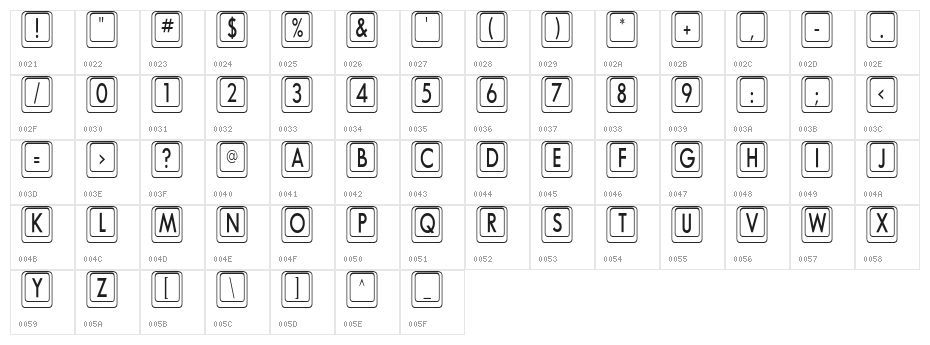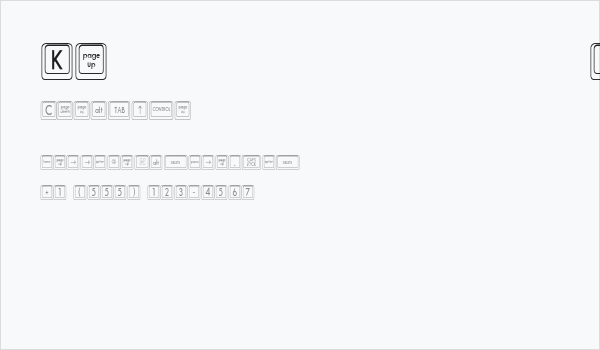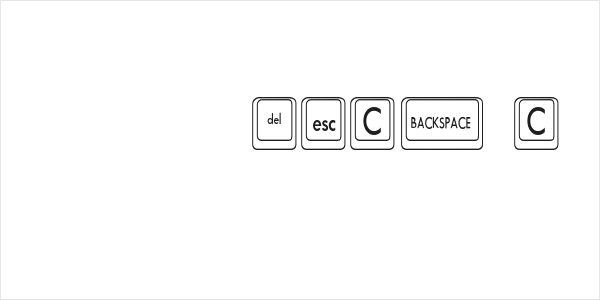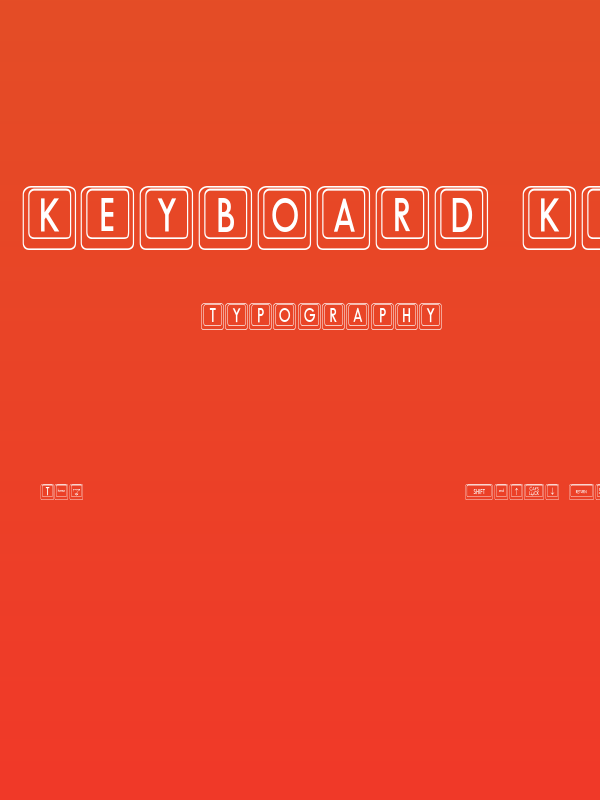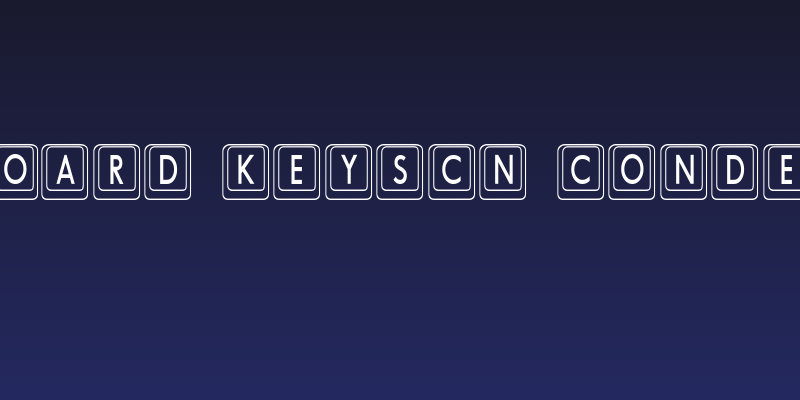
Keyboard KeysCn Condensed Font
Keyboard KeysCn Condensed Description
This font is designed to mimic the appearance of keyboard keys, with each character enclosed in a rounded rectangle, creating a distinct and recognizable style. The characters are bold and clear, ensuring readability and a modern aesthetic. The uppercase letters, numbers, and special characters are all uniformly styled, maintaining consistency across the set. The font's condensed nature allows for efficient use of space, making it suitable for designs where space is a premium. The overall look is clean and minimalistic, with a slight retro feel due to the keyboard key design.
| Use Case | Headlines, Logos, Digital Interfaces |
| Proposed Projects | Ideal for tech-related designs, digital interfaces, educational materials, or any project requiring a modern, tech-inspired look. |